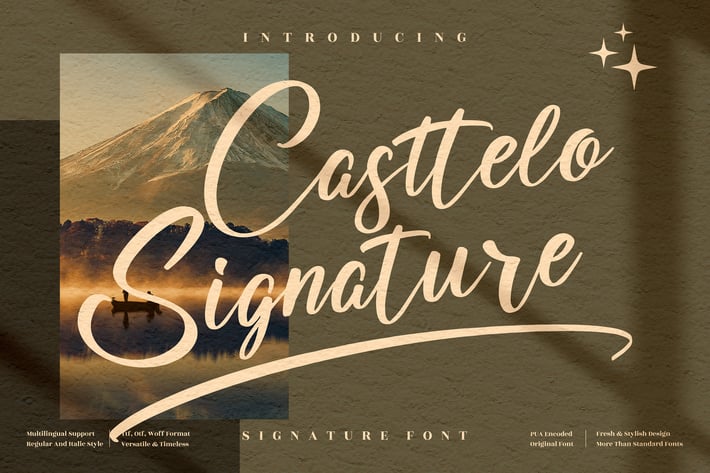
Casttelo Signature Font
Casttelo Signature is a refined and expressive signature-style font that exudes class and authenticity. Its fluid strokes and balanced curves are designed to give your projects a luxurious, handcrafted touch. Whether used for personal branding or elegant designs, this font captures timeless sophistication with a modern edge.
Stylish handwritten signature font
Smooth, elegant ligatures and swashes
Works beautifully for both print and digital media
Write your story with elegance — Casttelo Signature turns handwriting into timeless sophistication.